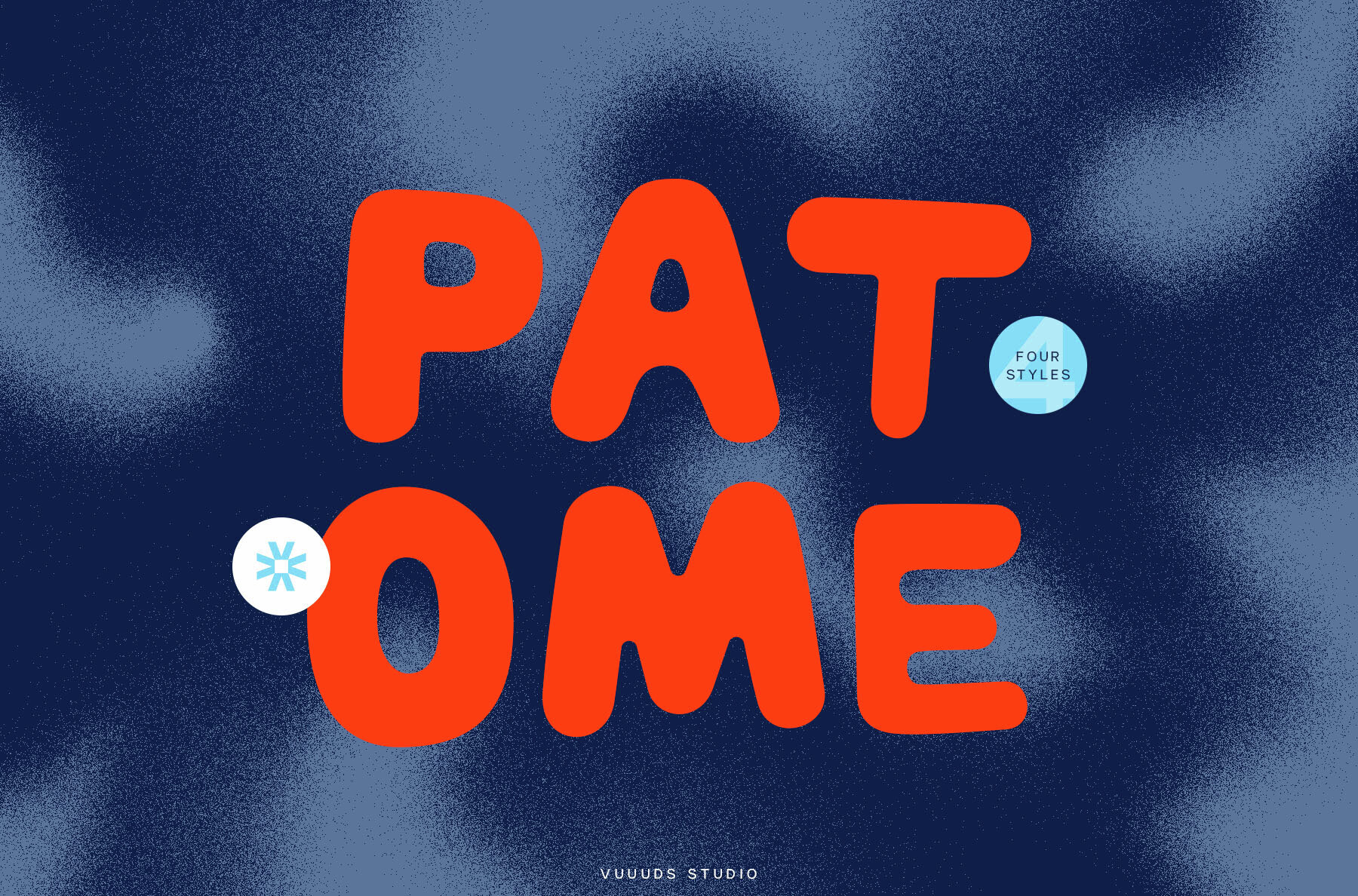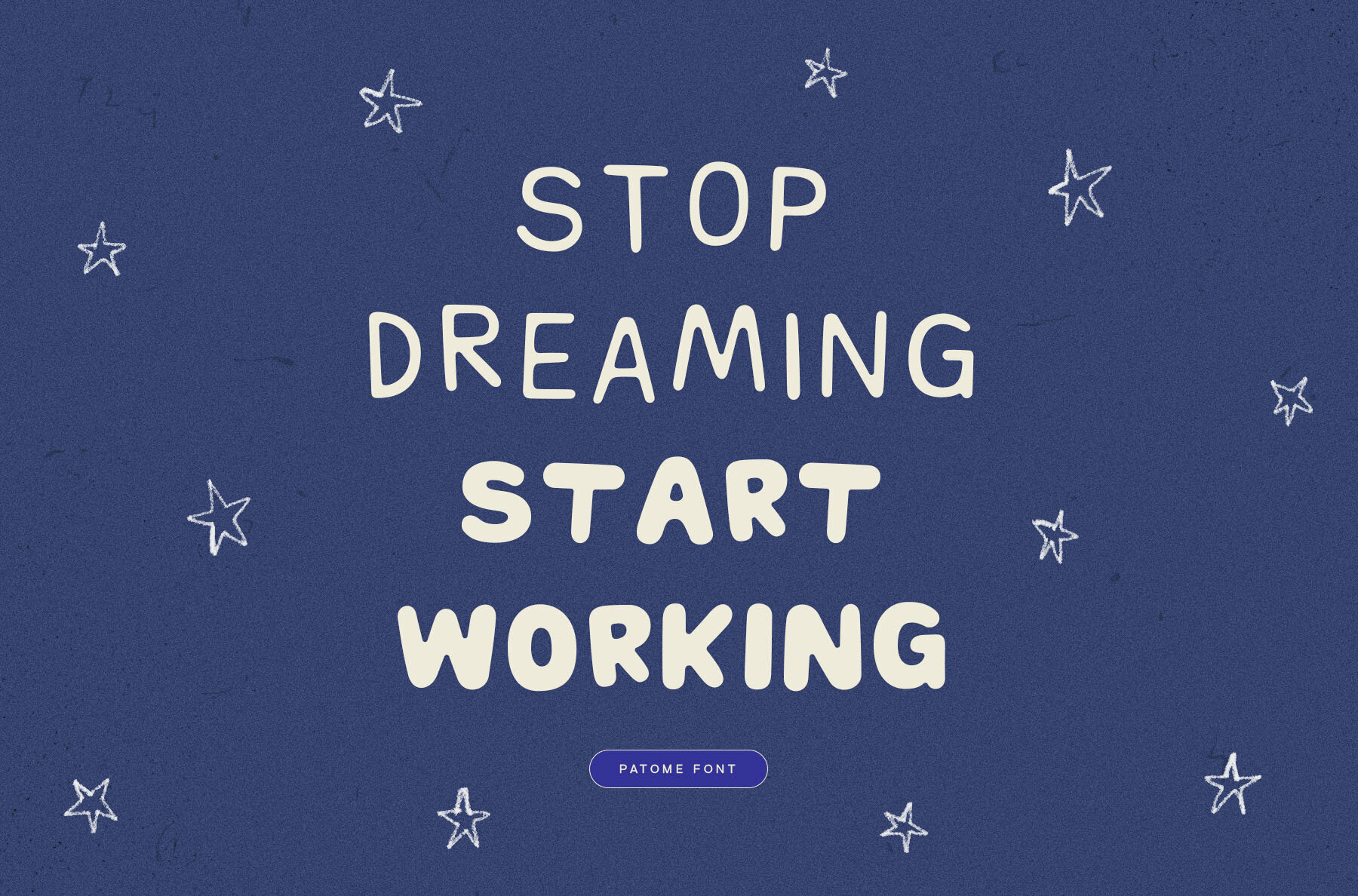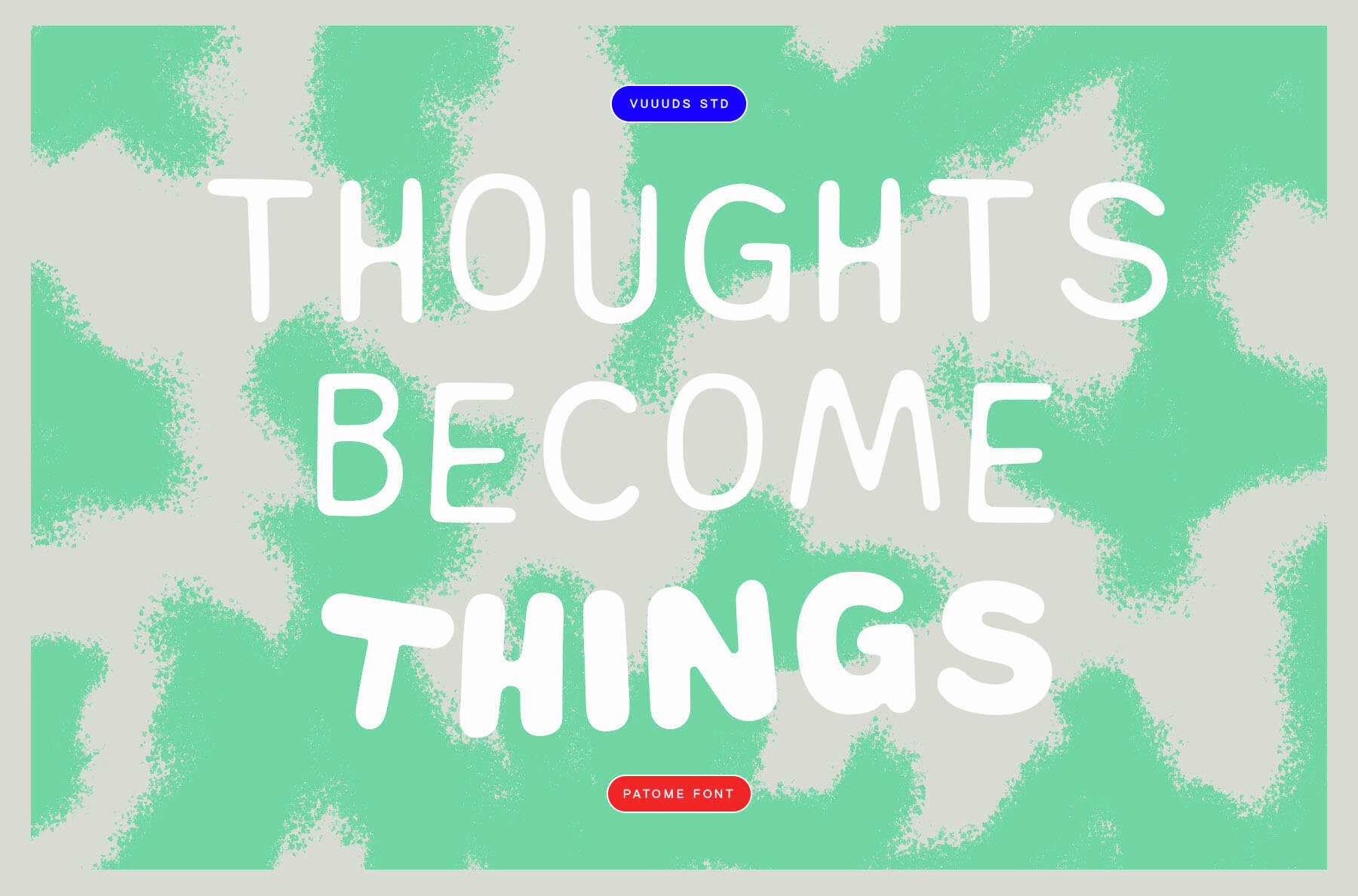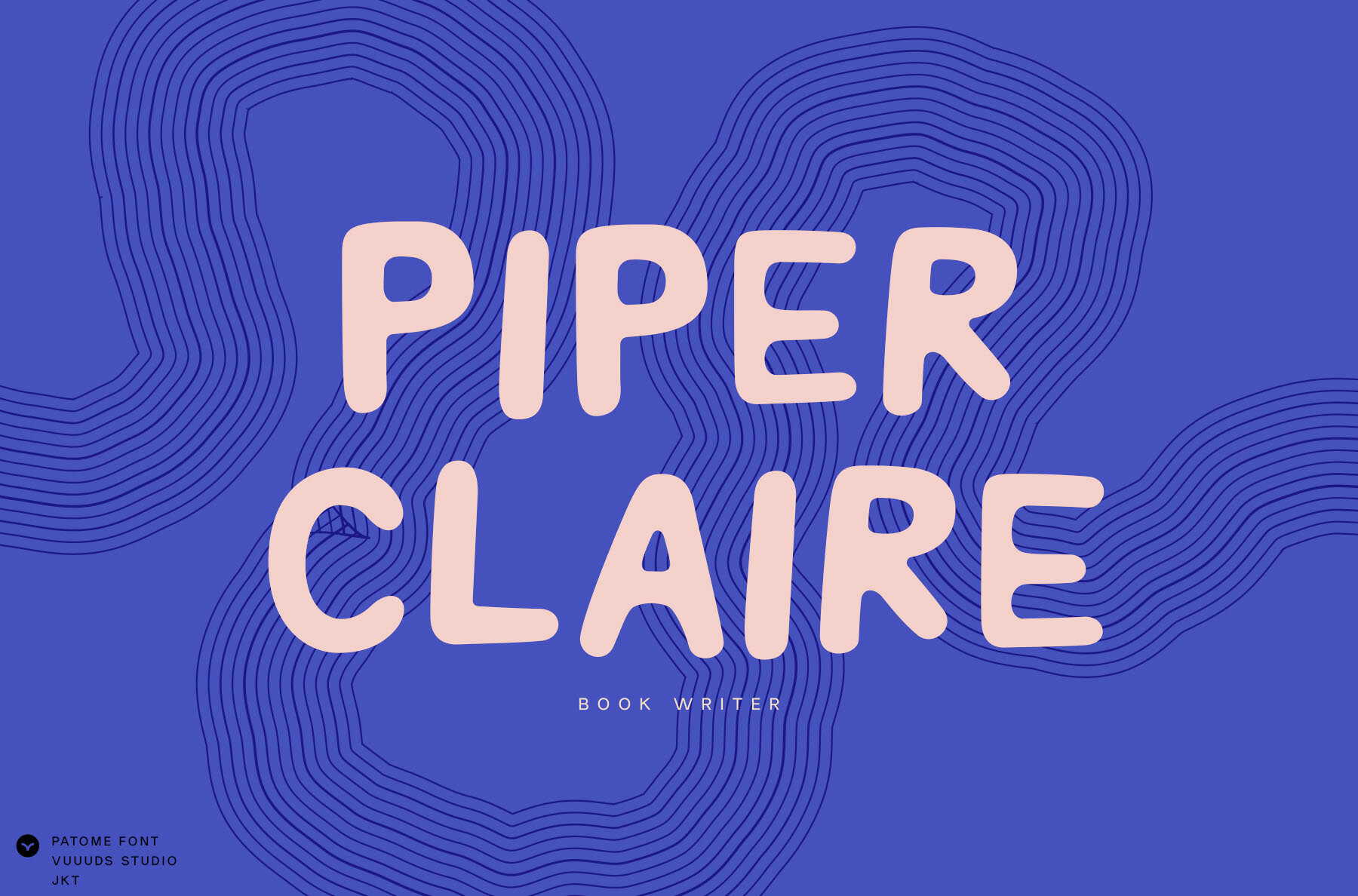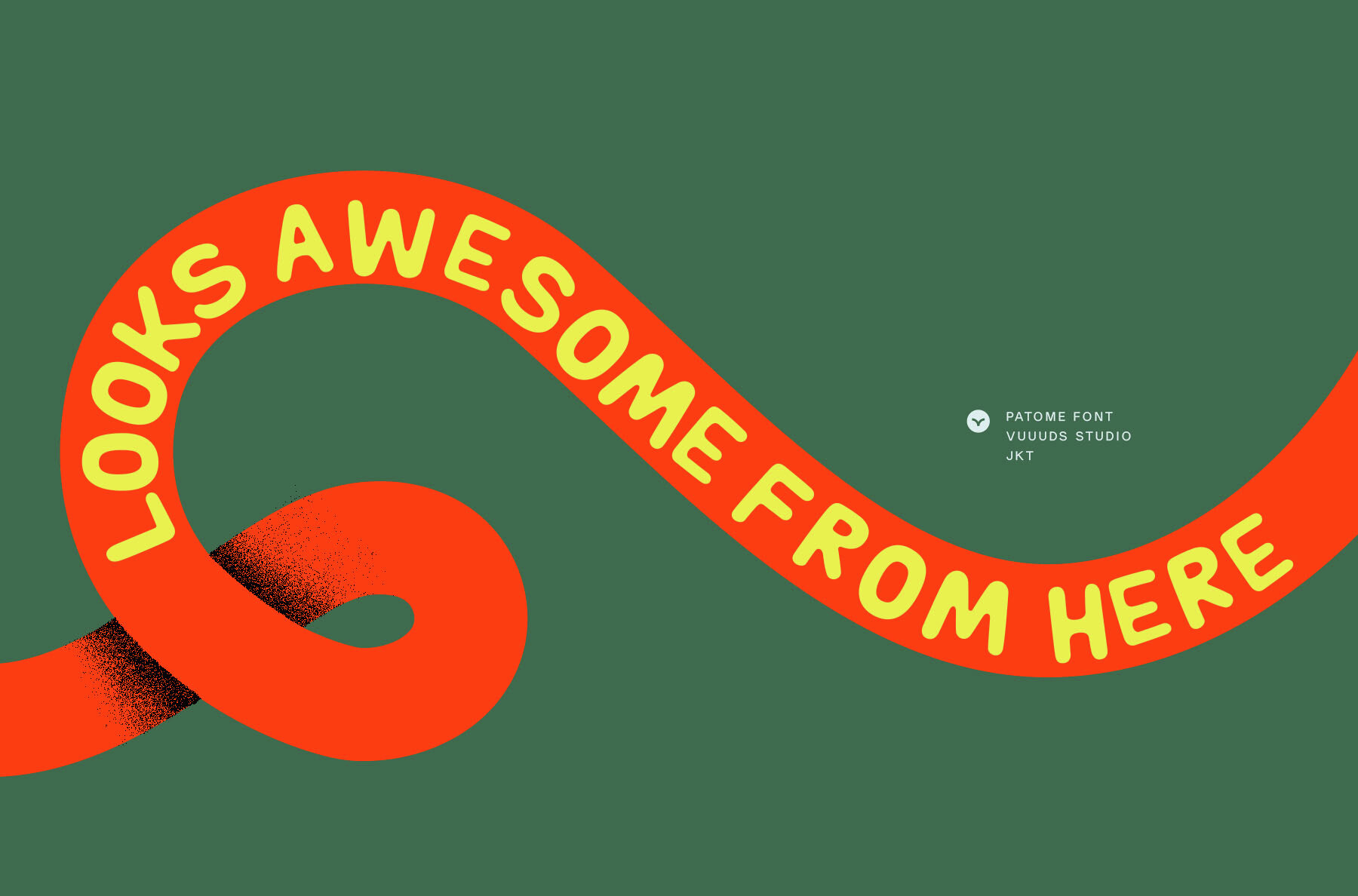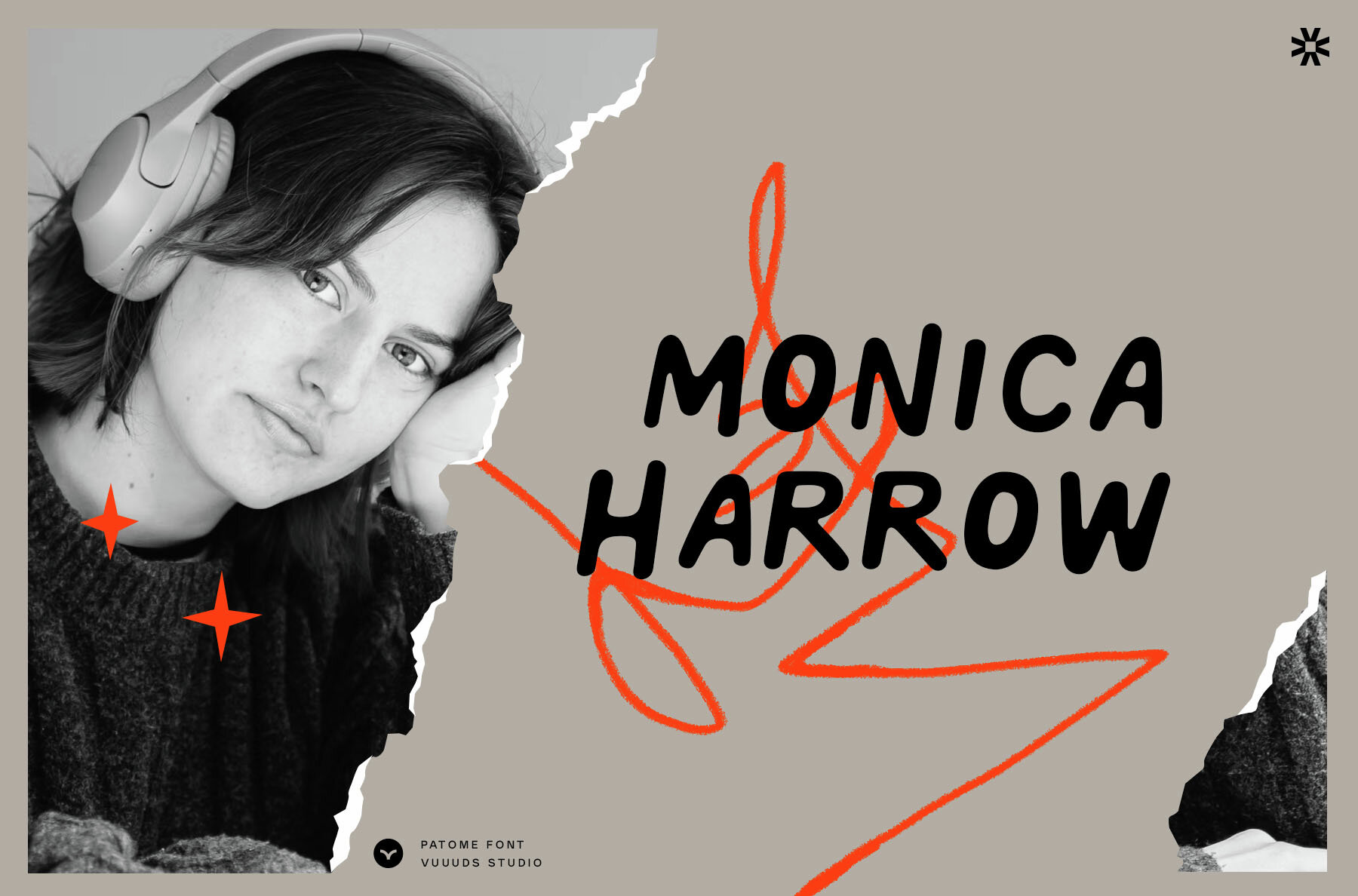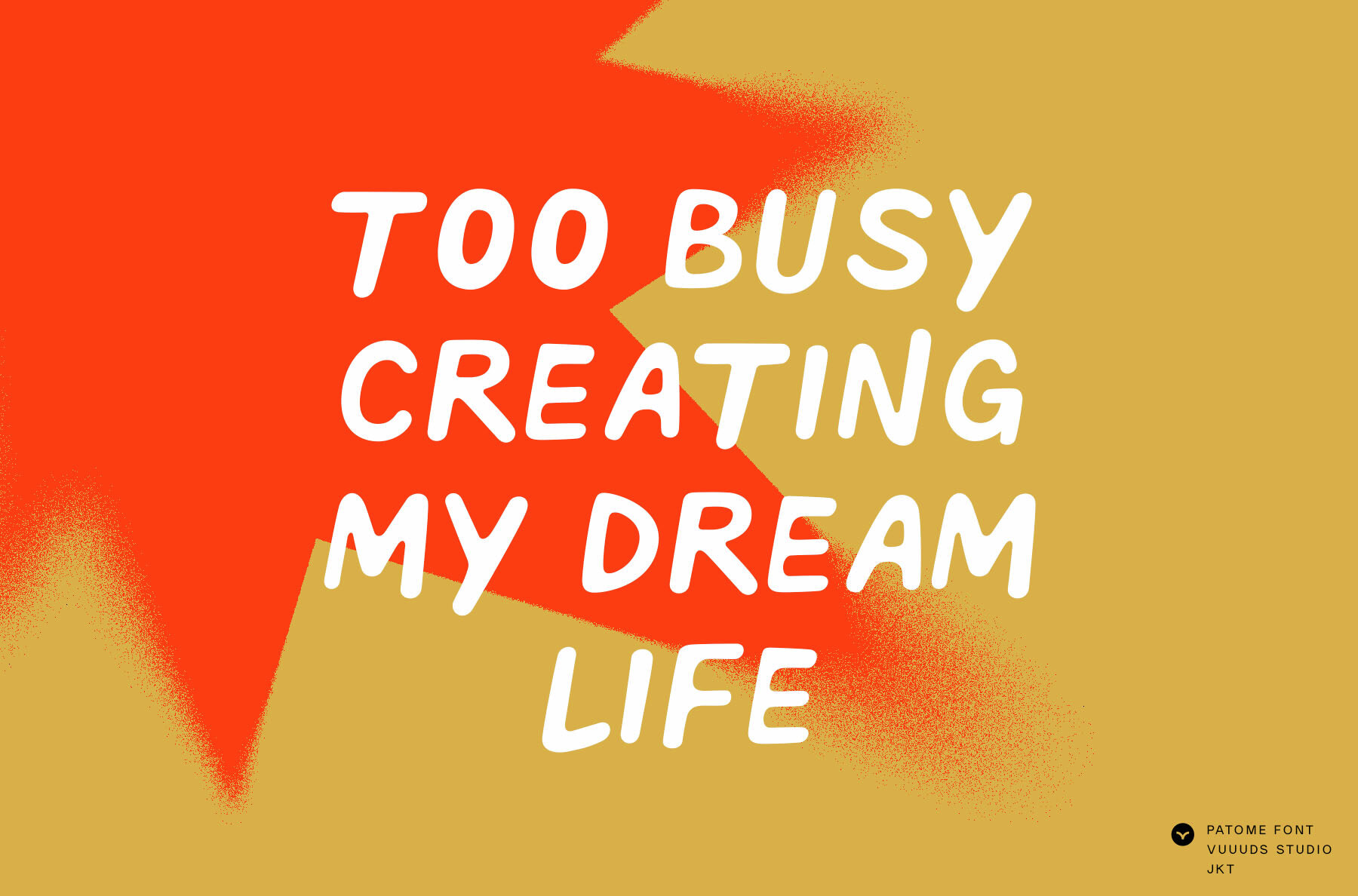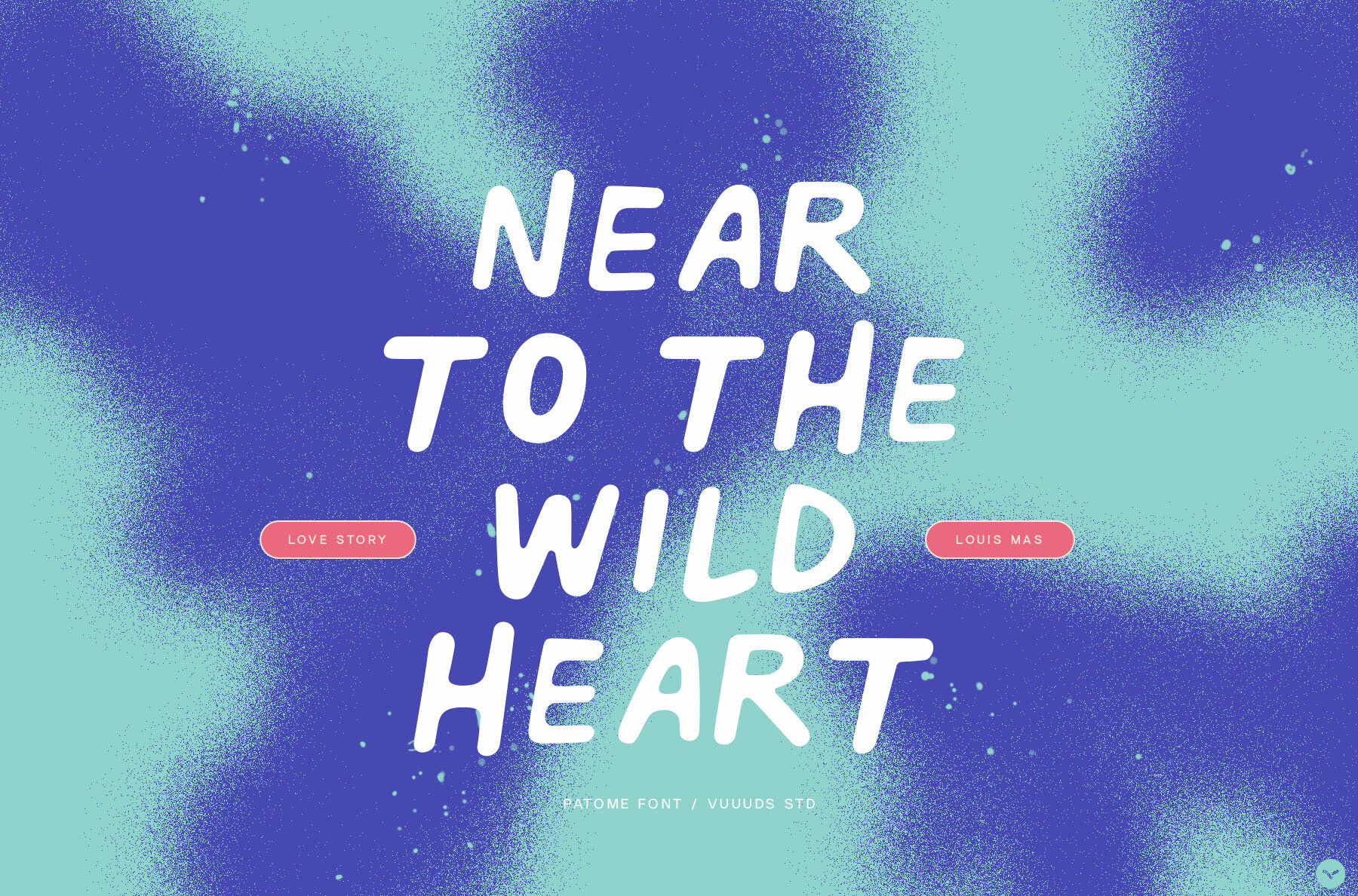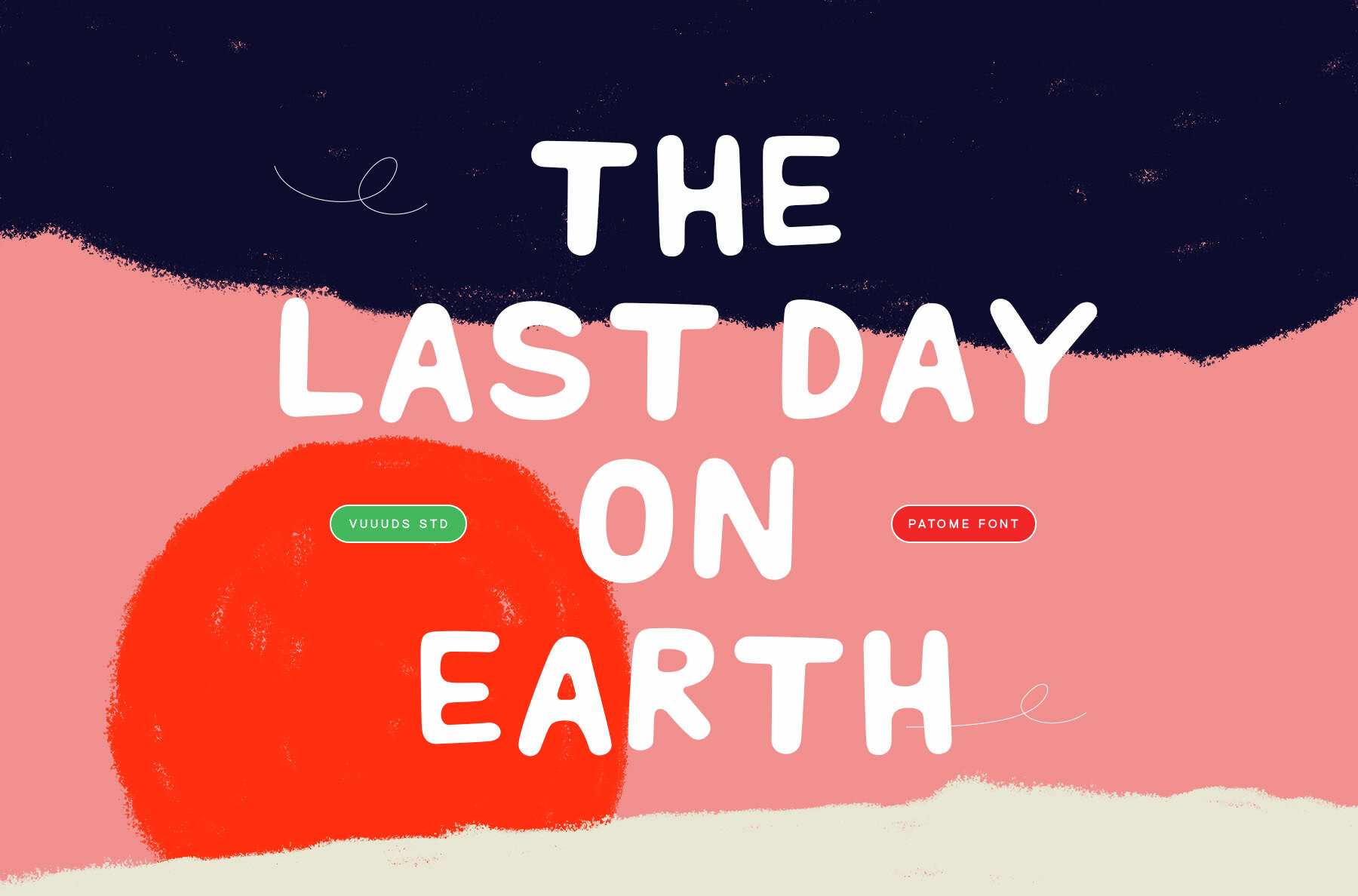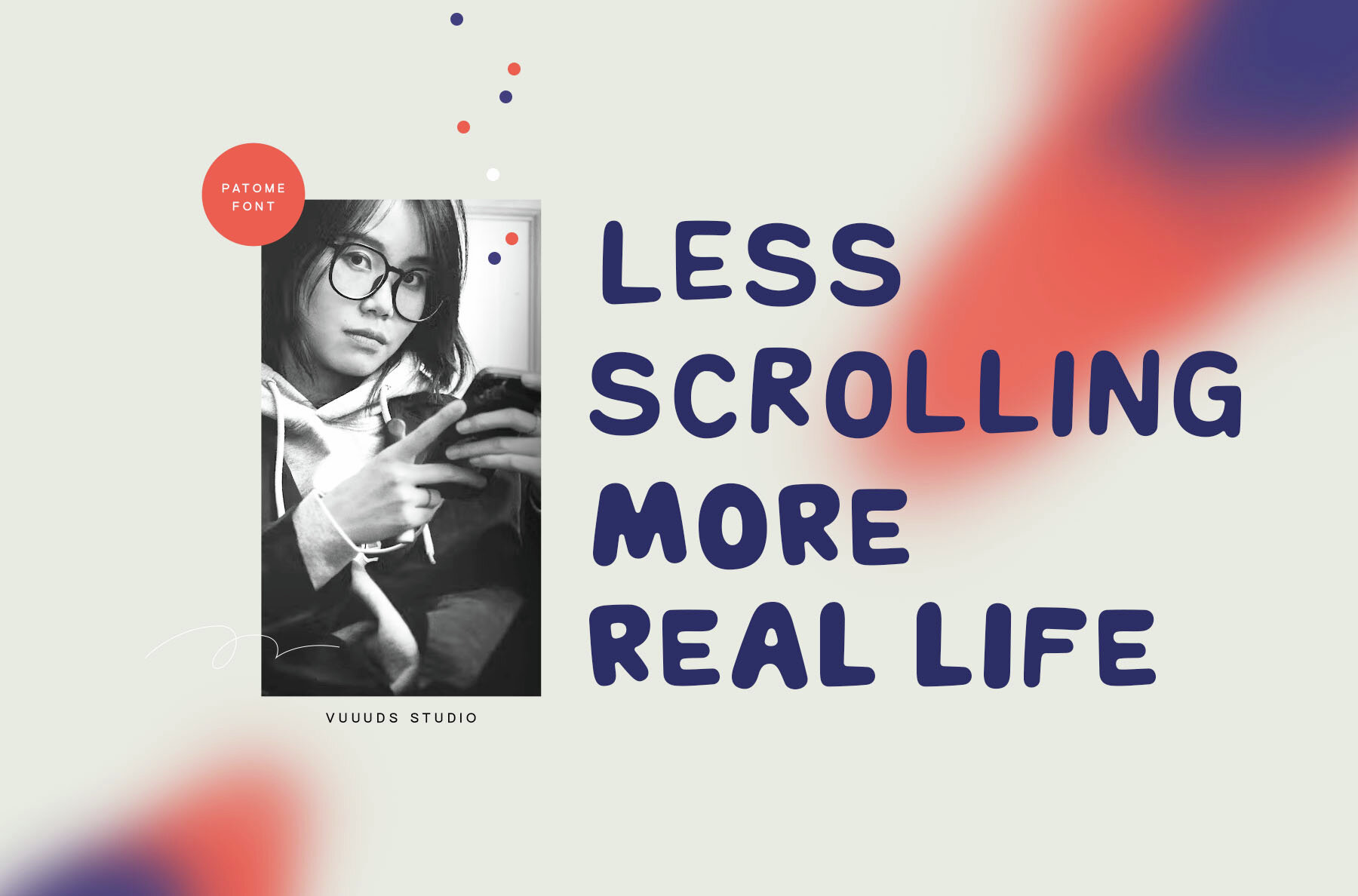
Patome Font
Patome is a modern rounded sans serif font, thoughtfully crafted to bring a unique touch to each letter. Ideal for graphic and digital designers, Patome stands out with its artistic precision and style. The font includes visually appealing alternate glyphs, accessible through Font Book on Mac or Windows Character Map, enhancing design flexibility.
Supporting an extensive range of foreign languages, Patome ensures compatibility across various linguistic needs, making it a versatile choice for global design projects. Whether you're designing a logo, a headline, or an entire branding campaign, Patome provides the necessary tools to create distinctive and polished outcomes. Leveraging its modern aesthetic, Patome is suited for any project seeking a clean and rounded sans serif style.